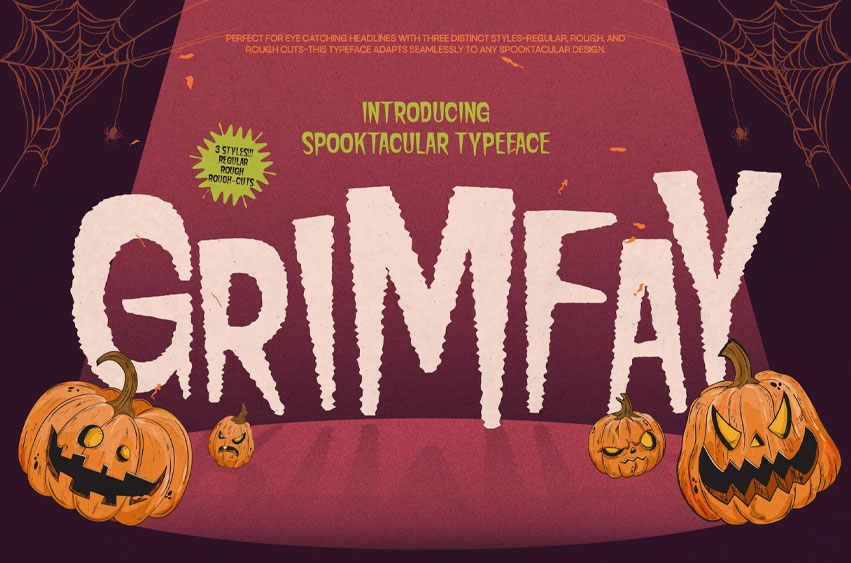
Grimfay Font
Grimfay Font Dive into the chilling world of Grimfay, a unique display decorative typeface that captures the essence of autumn nights filled with horror and terror. Perfect for those who want to evoke a spooky atmosphere, this font is designed to bring your projects to life, from movie posters to branding that stands out with originality.
Grimfay embodies a perfect blend of fear and fun, making it both expressive and legible. With its rough, grunge cuts, this font radiates a cartoonish vibe that is ideal for kids’ Halloween-themed content while still delivering that spine-tingling aura of the unknown. Imagine a zombie poster or a spooky web design—Grimfay sets the perfect tone.
What sets Grimfay apart is its ability to balance playful horror with strong visual impact. This font excels in digital media visuals, making it a go-to choice for text animations and motion graphics. Its bloody, murder-like aesthetics create a memorable impression, ensuring your designs resonate with audiences looking for that thrilling touch.
• Uppercase & lowercase
• Numbers and punctuation
• Ligatures & Alternates
Display Decorative Typeface: Bold and eye-catching, ideal for movie titles and branding. Expressive & Strong: Commands attention while maintaining legibility. Bloody & Murderous Aesthetic: Perfect for creating an atmosphere of fear. Variants Available: The Grimfay font family provides versatility for all your spooky design needs.